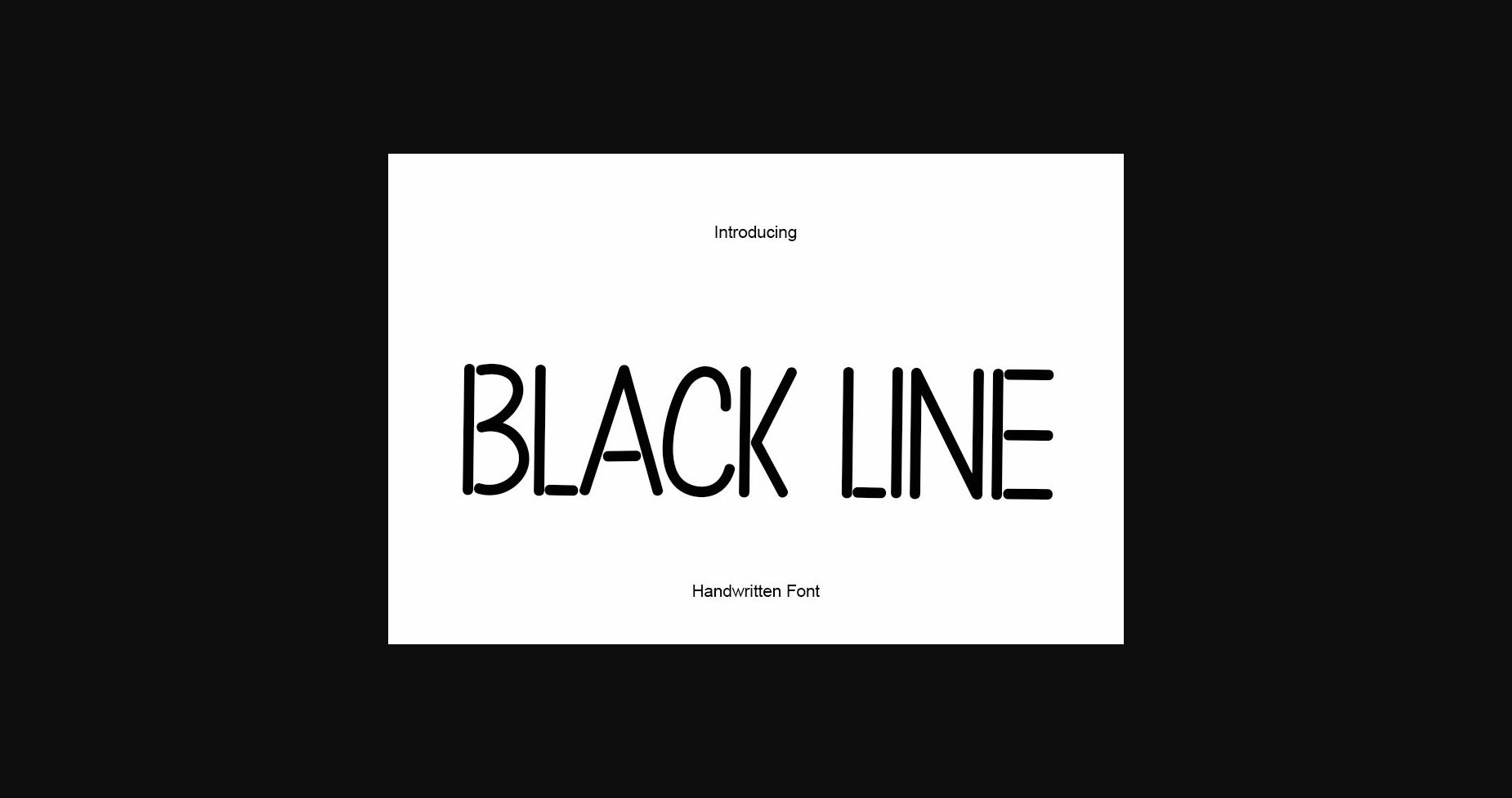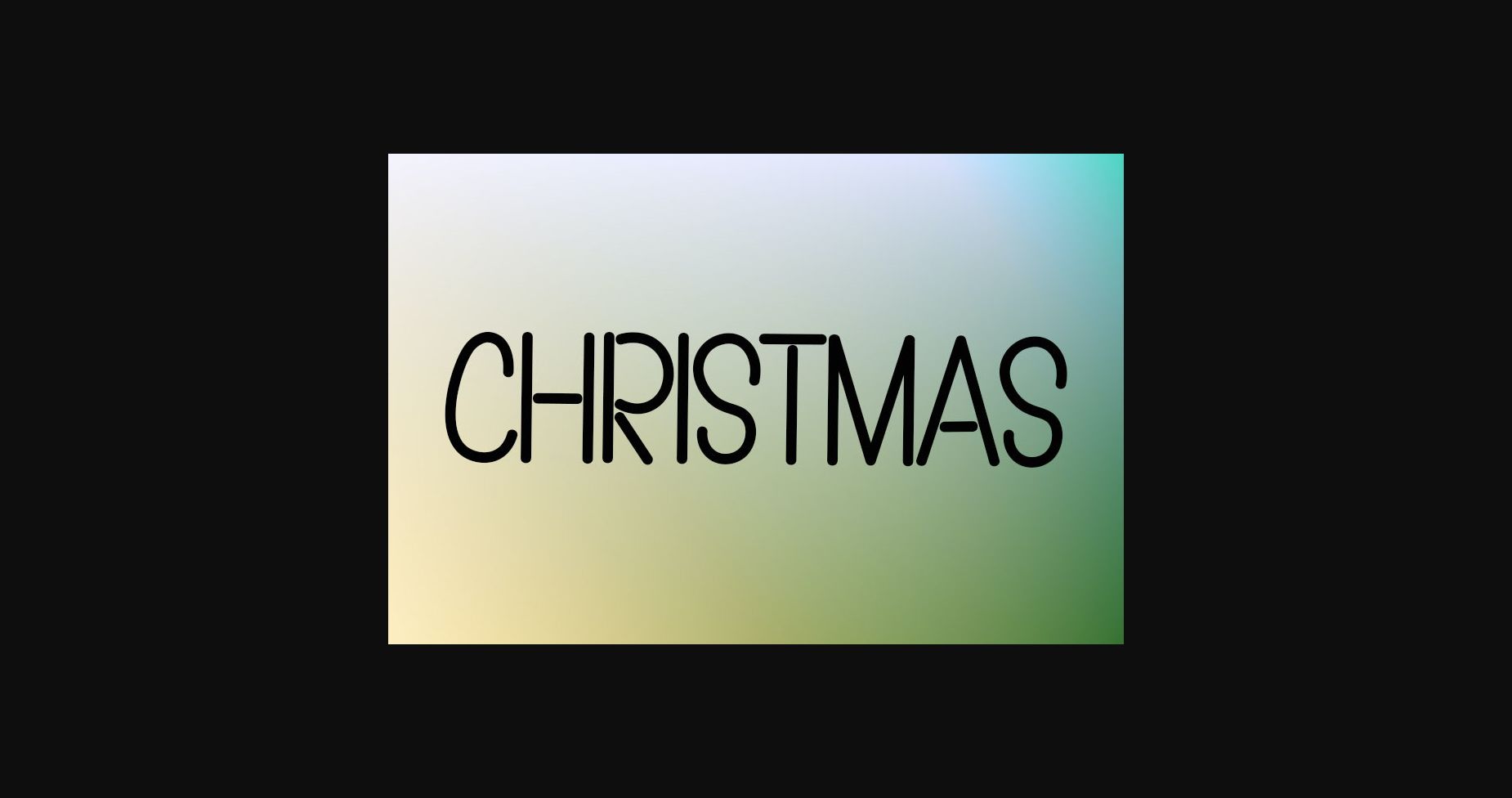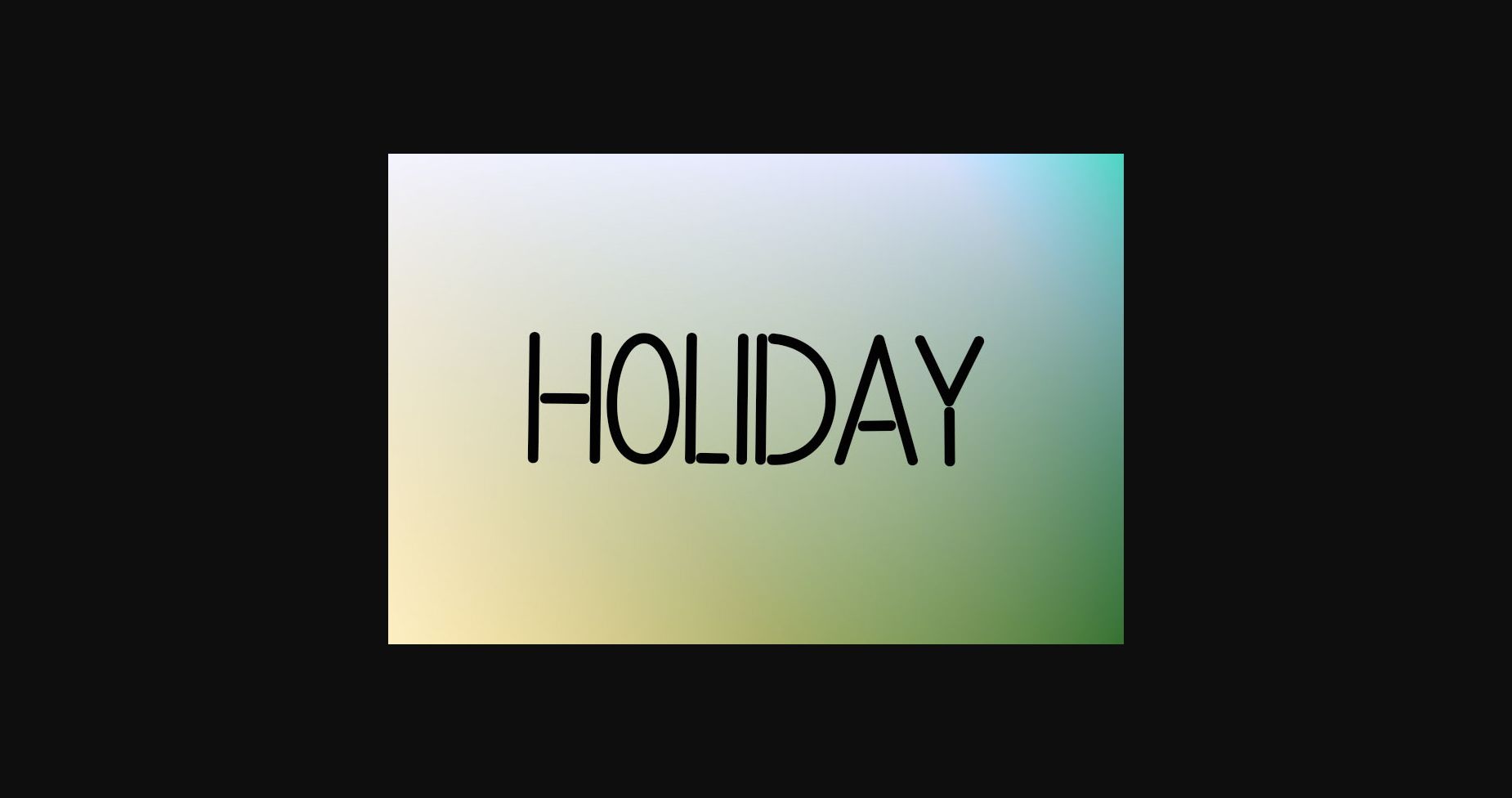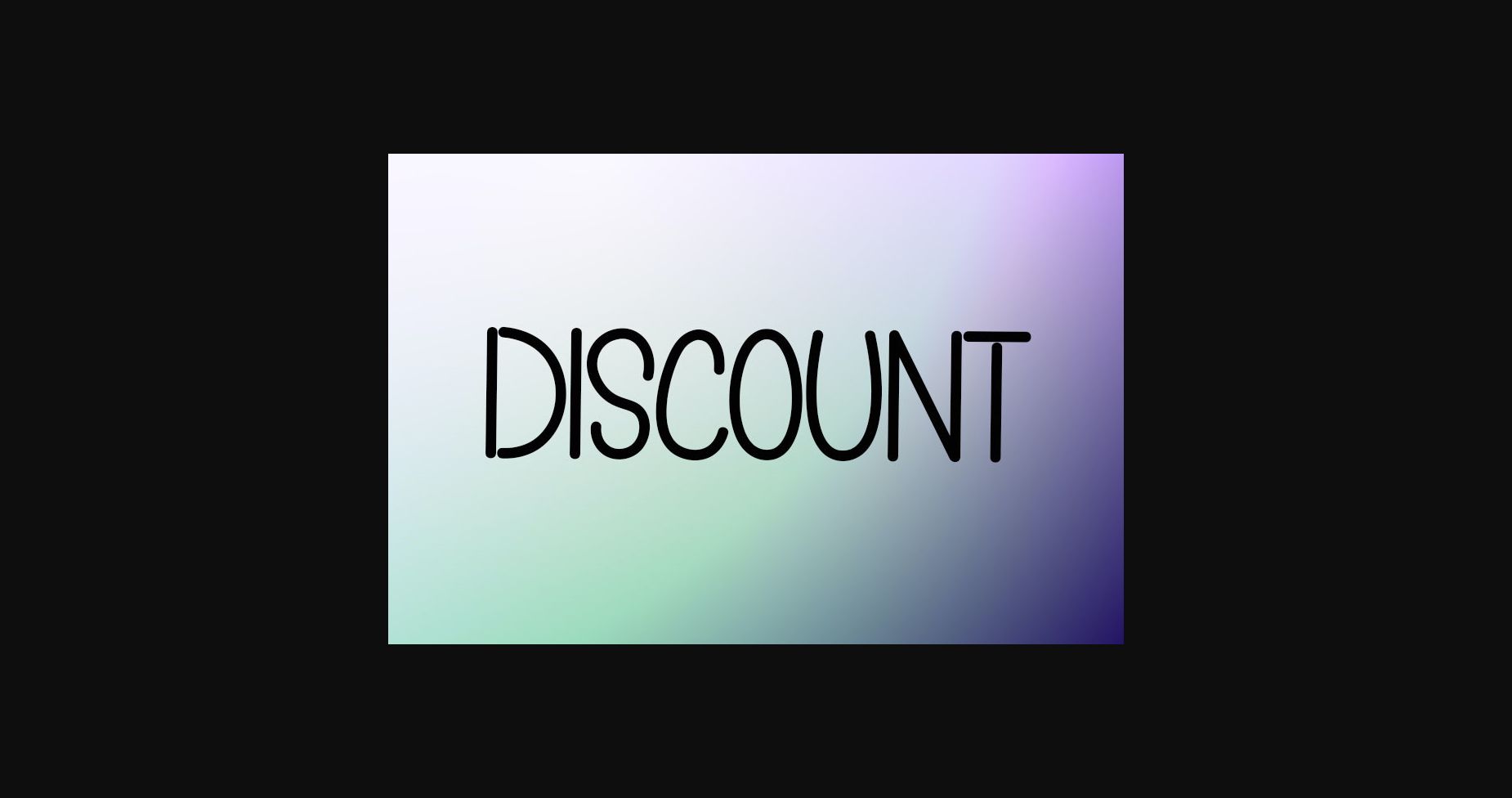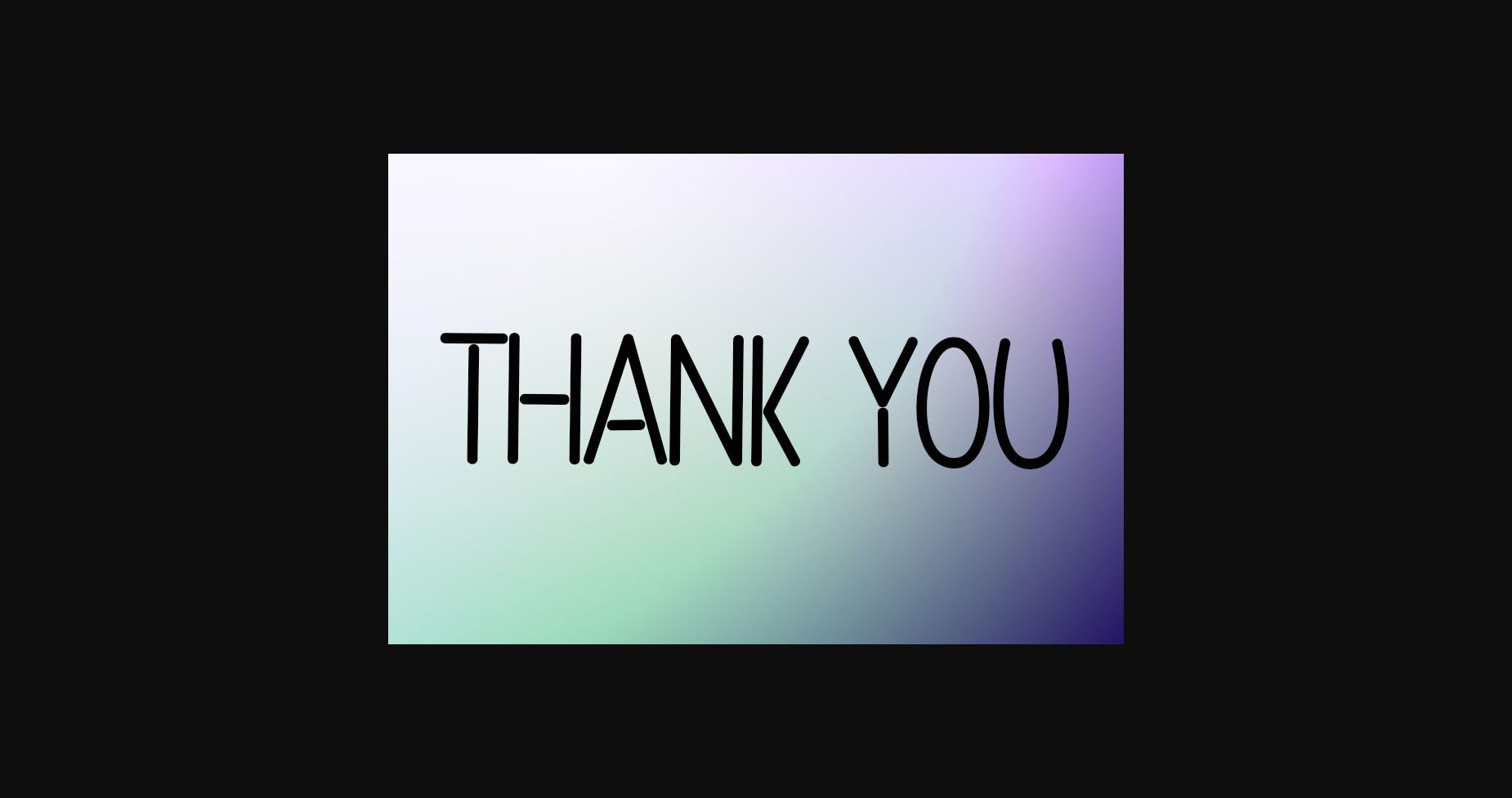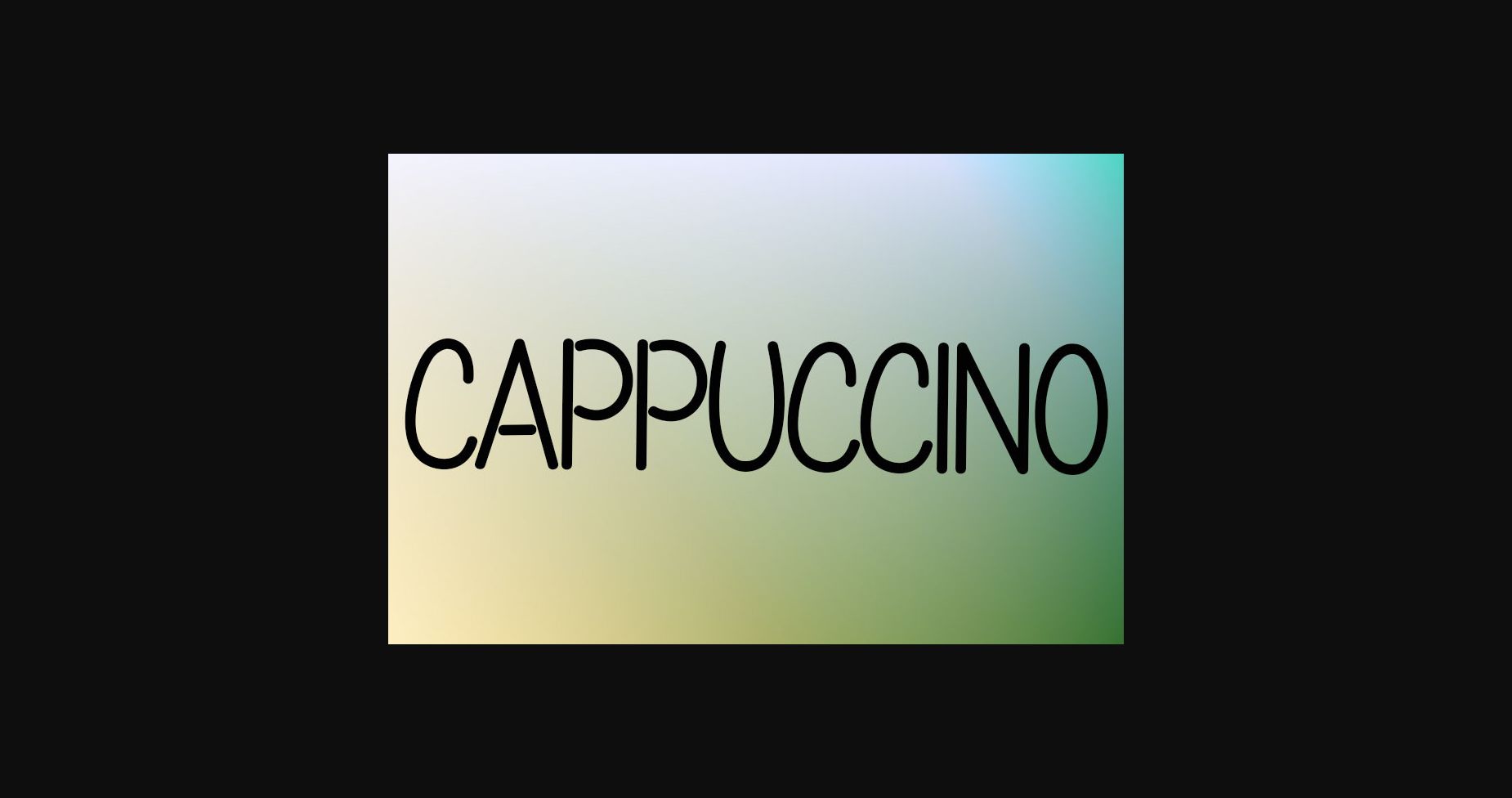
Black Line Font
About Black Line Font
Black Line is a neat and beautiful sans-serif font described by an elegant touch, perfect for your favorite projects. Fall in love with its incredibly distinct and timeless style, and use it to create spectacular designs!